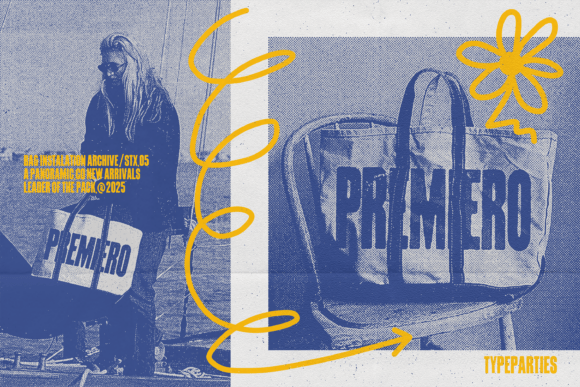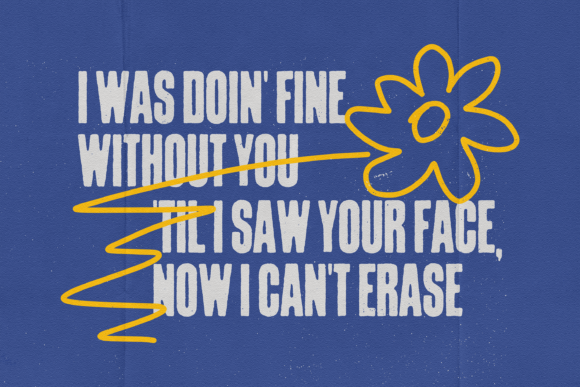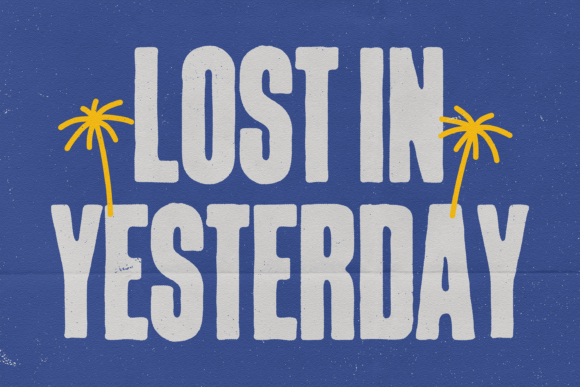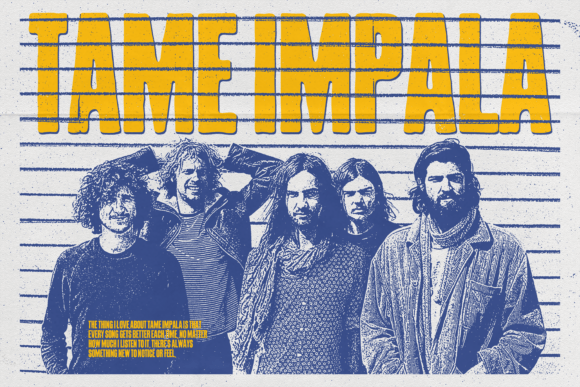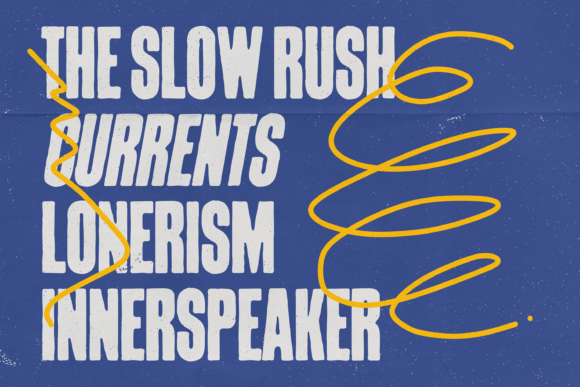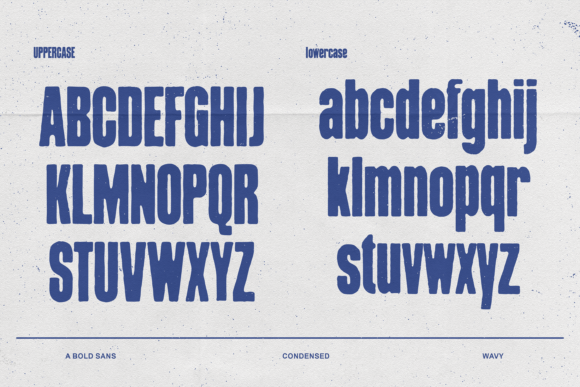
Introduction to Premiero Font
This font in your image has a bold, condensed, and playful look.
It’s all-caps with thick, blocky shapes that still feel organic due to subtle wavy edges and slight irregularities The distressed texture — little speckles and roughness inside the letters — gives it a gritty, vintage feel, almost like something you’d see on retro posters, outdoor festivals, or adventure-themed designs.
Key Features of Premiero Font
Why Choose Premiero Font?